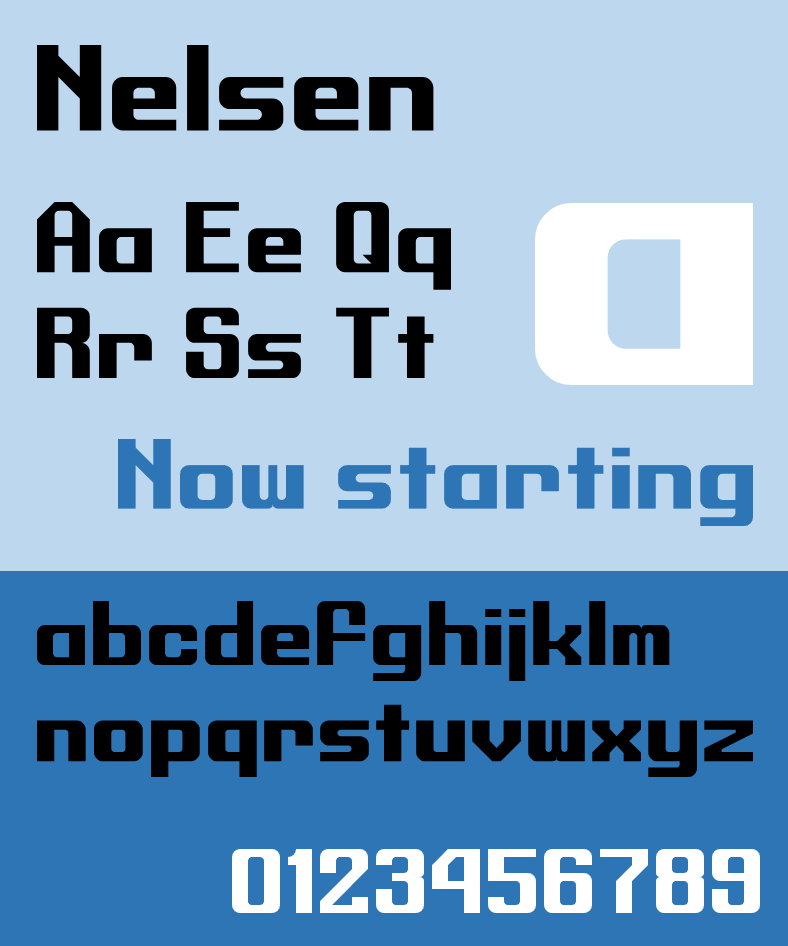
Font name: | Nelsen |
Author: | Tyler Harper |
Note by Tyler Harper | |
The unpixelated/vectorised�version of the font "Digits", which was featured in the "Chouhou Joutai" series. |